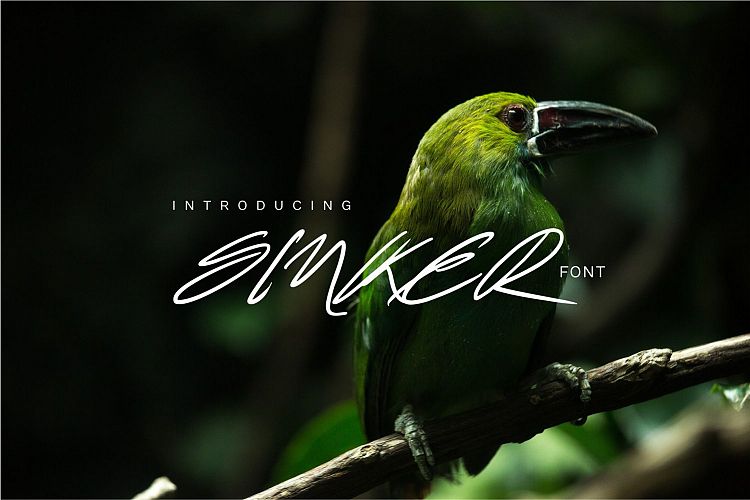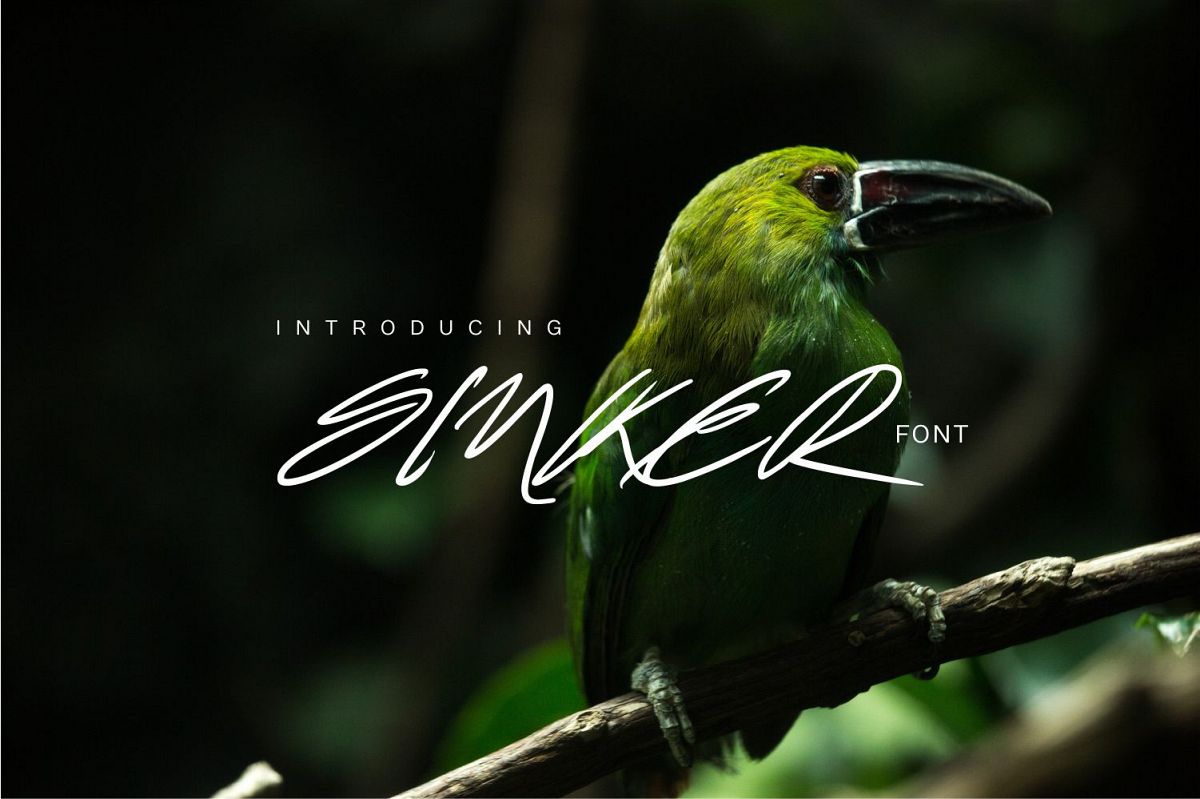
Sinker
Sinker - A new handmade font. It can be used in all advertising materials, perfect for: branding, business card, packaging, flyer, logo, photos, books, packaging, posters, etc ...